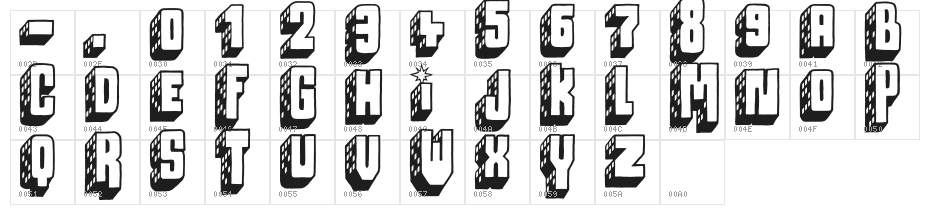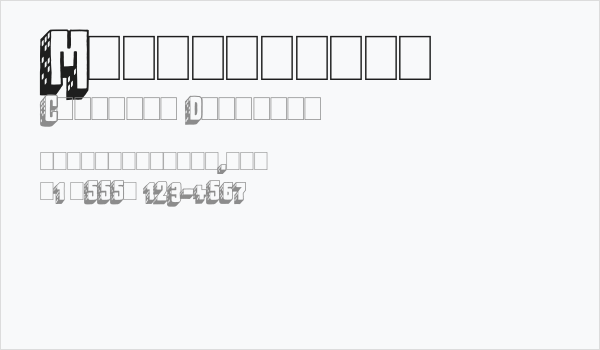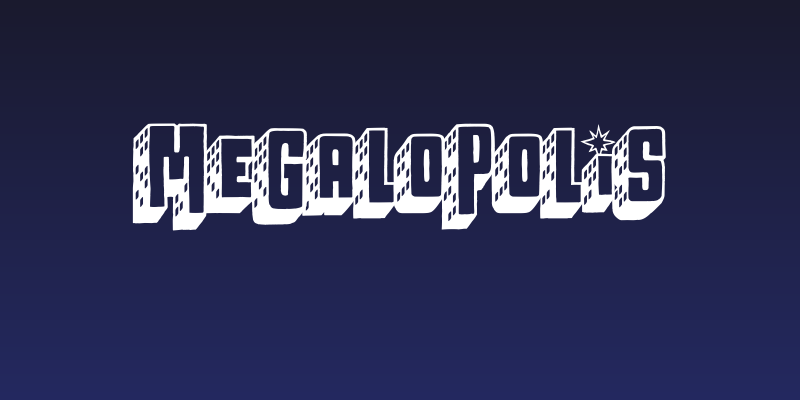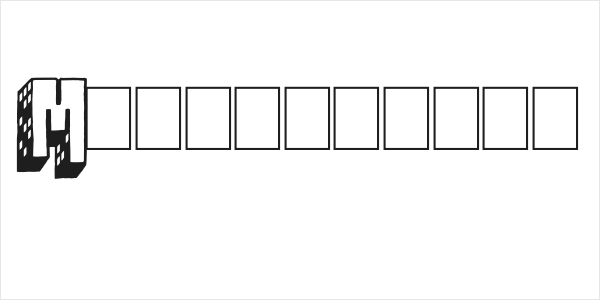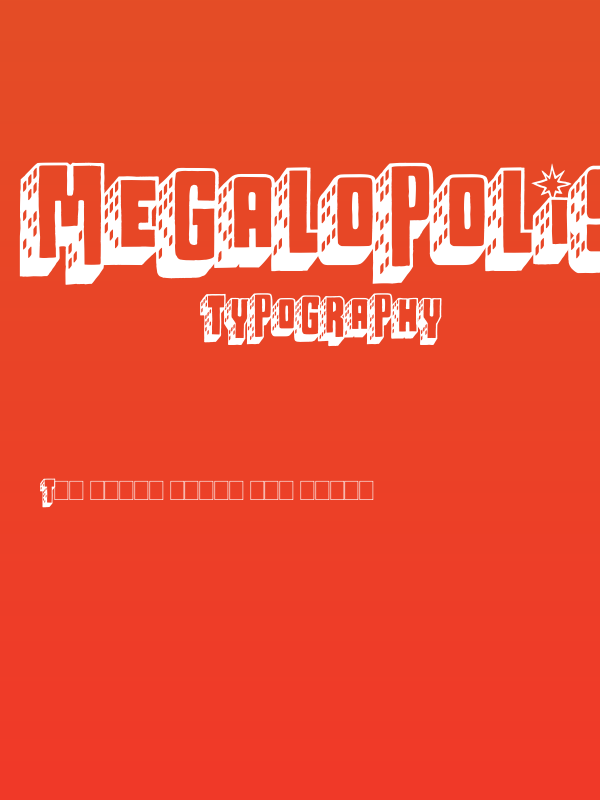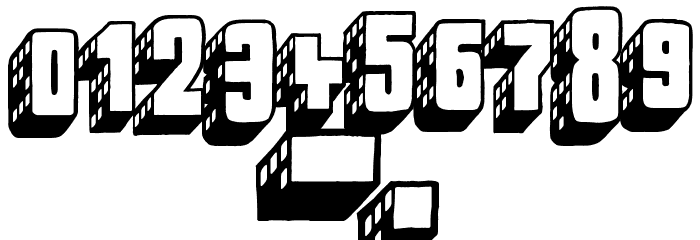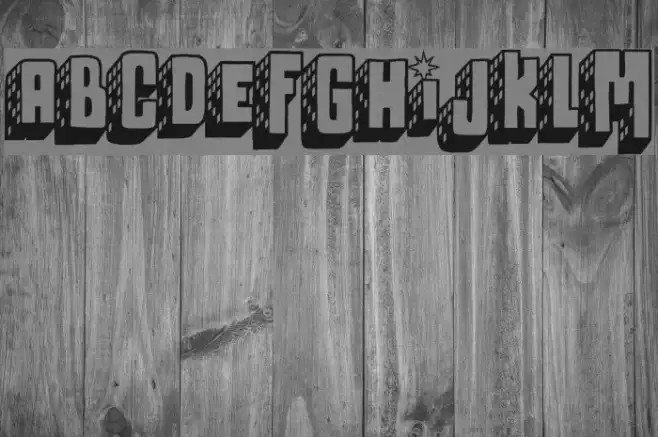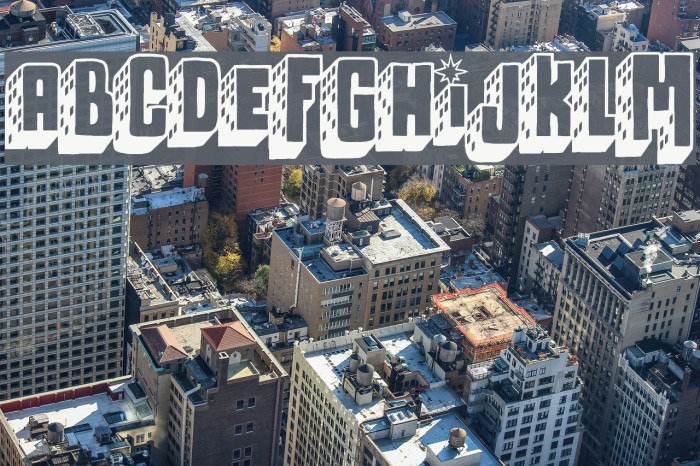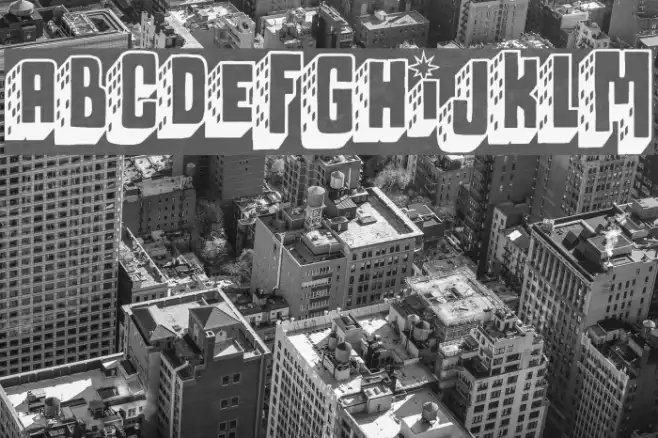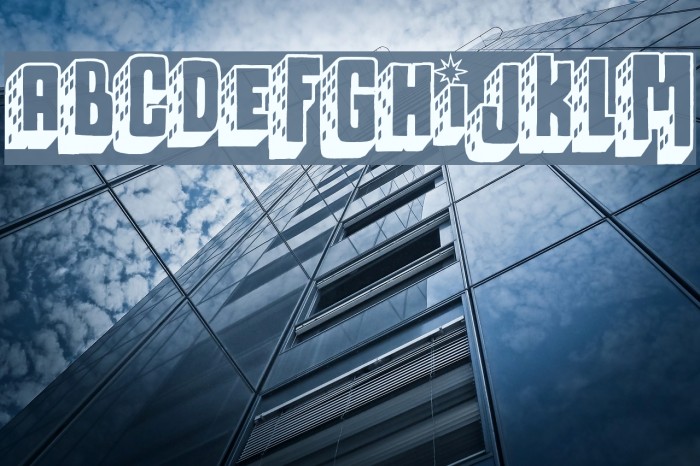
Megalopolis Font
Megalopolis Description
This font features a bold, three-dimensional block style with a playful and dynamic appearance. Each character is designed with a shadow effect, giving it a sense of depth and volume. The letters have a strong presence, with thick strokes and a dotted pattern on the sides, adding a unique texture. The font is highly decorative, making it ideal for eye-catching designs. Its cartoonish and whimsical style is perfect for projects that require a fun and engaging look. The uppercase and lowercase letters maintain a consistent style, while the numbers and special characters complement the overall design.
| Overall Style | Playful, Cartoonish, Decorative |
| Use Case | Headlines, Posters, Branding |
| Proposed Projects | Ideal for comic books, children's posters, playful branding, and eye-catching headlines. |